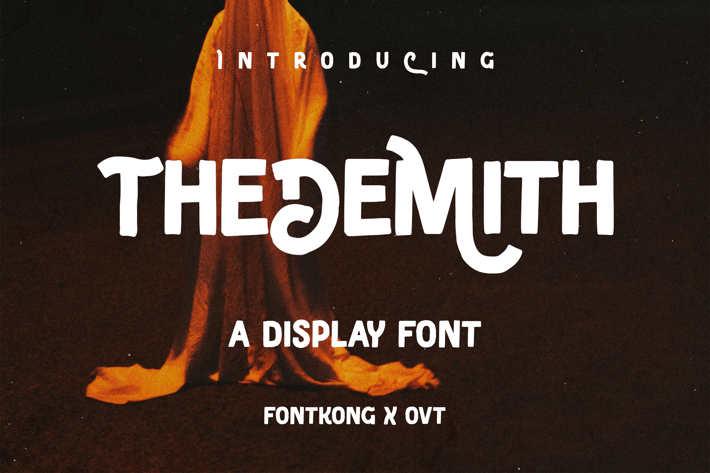
Thedemith - A Display Font
Thedemith is a bold and distinctive display font designed to make a powerful impact on your design projects. With its strong geometric shapes and eye-catching letterforms, Thedemith is perfect for striking posters, impactful branding, creative headlines, and memorable logos. This font captures a modern and assertive style, ensuring your work stands out with a commanding presence.
Crafted with precision, Thedemith features well-defined characters that offer excellent readability and visual prominence. Its display-oriented design makes it ideal for high-visibility applications, providing a robust and engaging presence. The font’s versatility allows it to adapt seamlessly to various design contexts, from digital media to printed materials, making it a valuable asset for any designer aiming to create bold and compelling visuals.
Elevate your design projects with Thedemith, a font that embodies the essence of modern strength and individuality. Its unique style and adaptability make it an essential addition to any designer’s toolkit for crafting impactful and distinctive designs. Enhance your work with Thedemith and experience the power of dynamic display typography.